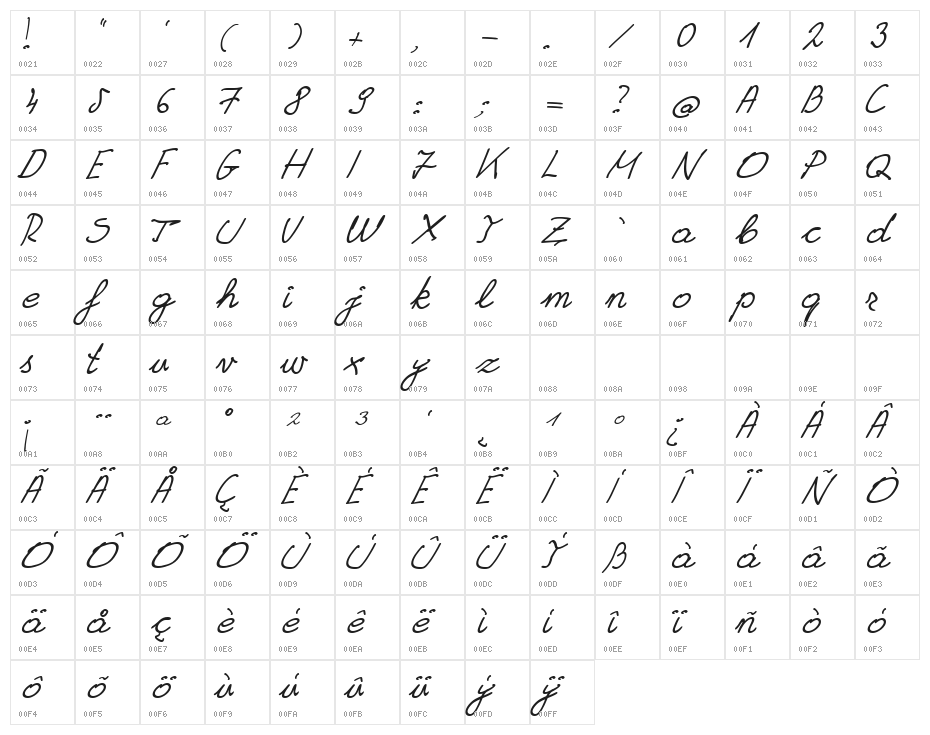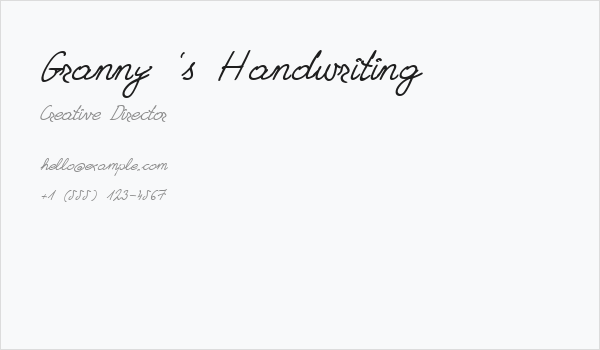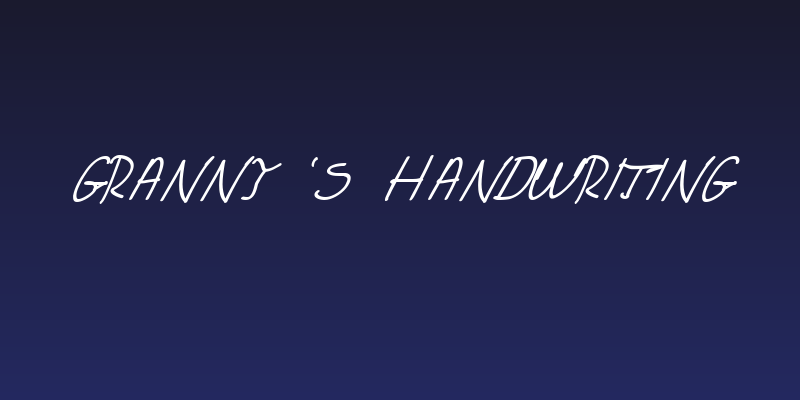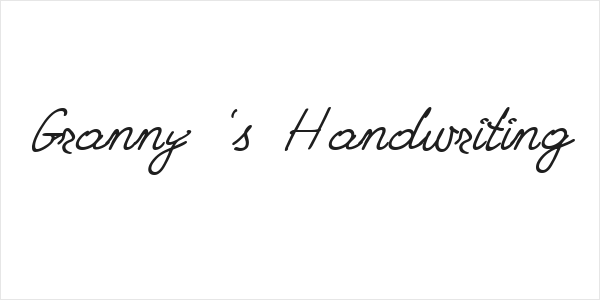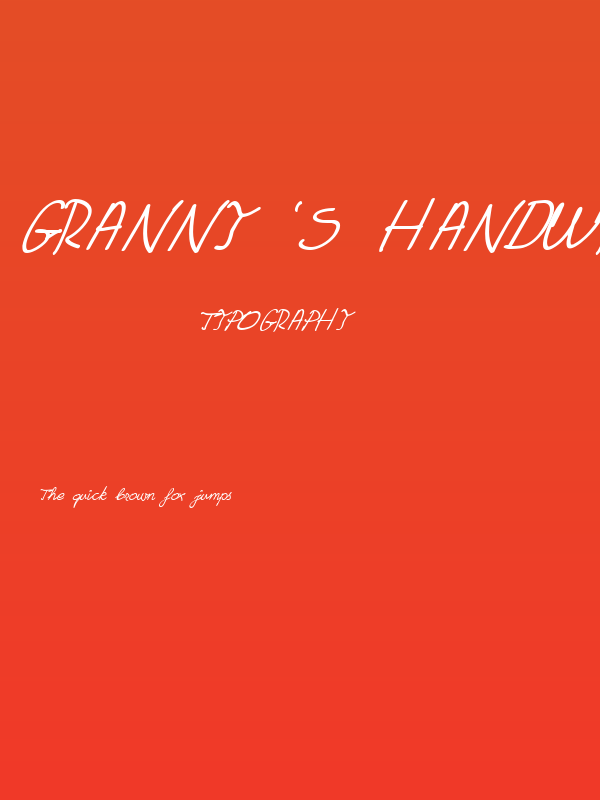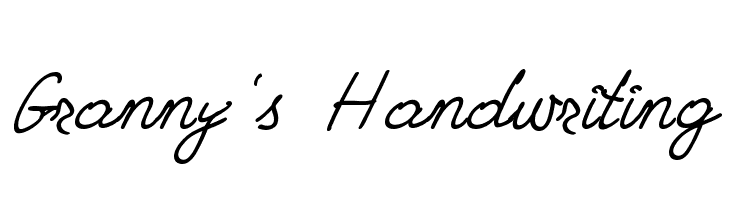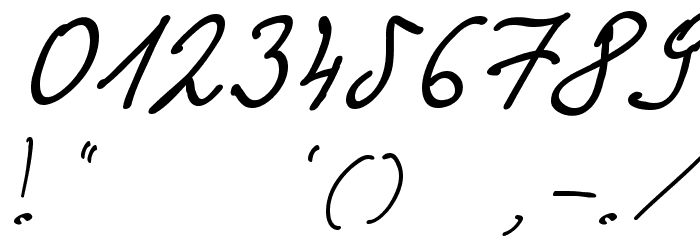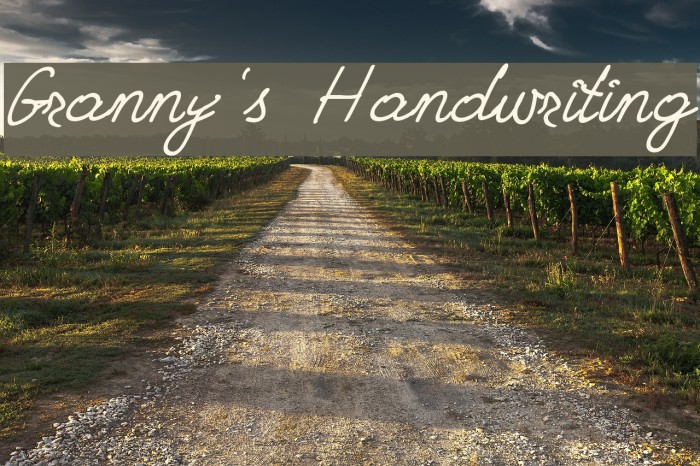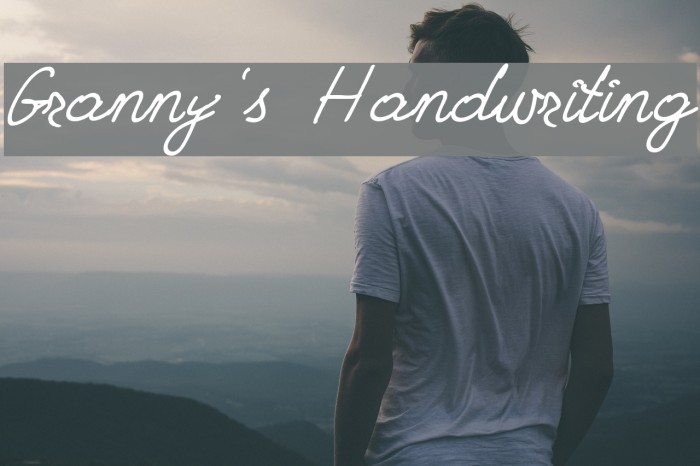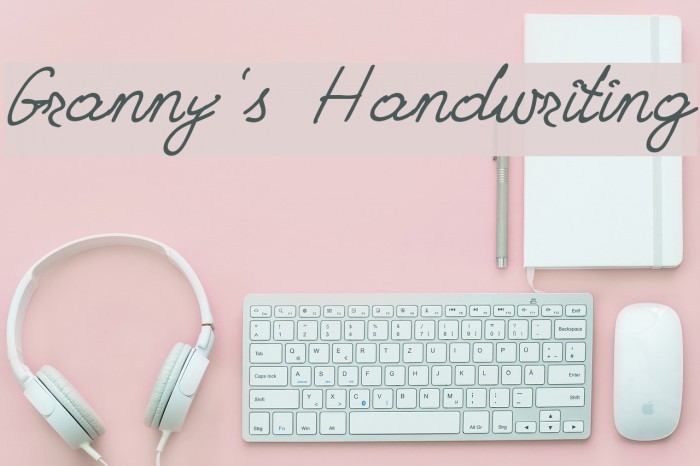
Granny's Handwriting Font
Granny's Handwriting Description
This font exudes a charming handwritten style, reminiscent of personal notes or letters from a bygone era. The characters are fluid and connected, with a natural flow that mimics the nuances of cursive handwriting. Each letter has a distinct personality, with slight variations that add to the authenticity of the handwritten effect. The uppercase letters are bold and slightly slanted, while the lowercase letters maintain a consistent baseline, enhancing readability. Numbers and special characters are crafted with the same attention to detail, ensuring a cohesive look across all text elements. The overall appearance is both nostalgic and approachable, making it ideal for projects that require a personal touch.
| Use Case | Logos, Invitations, Greeting cards |
| Proposed Projects | Ideal for personal letters, invitations, greeting cards, and branding projects that require a personal touch. |